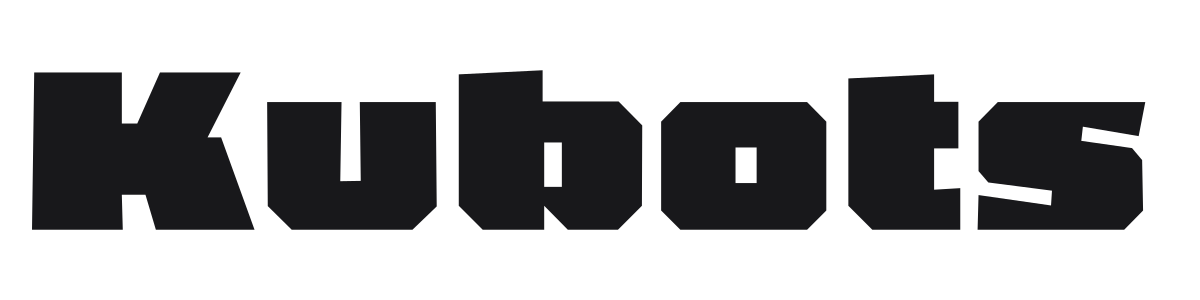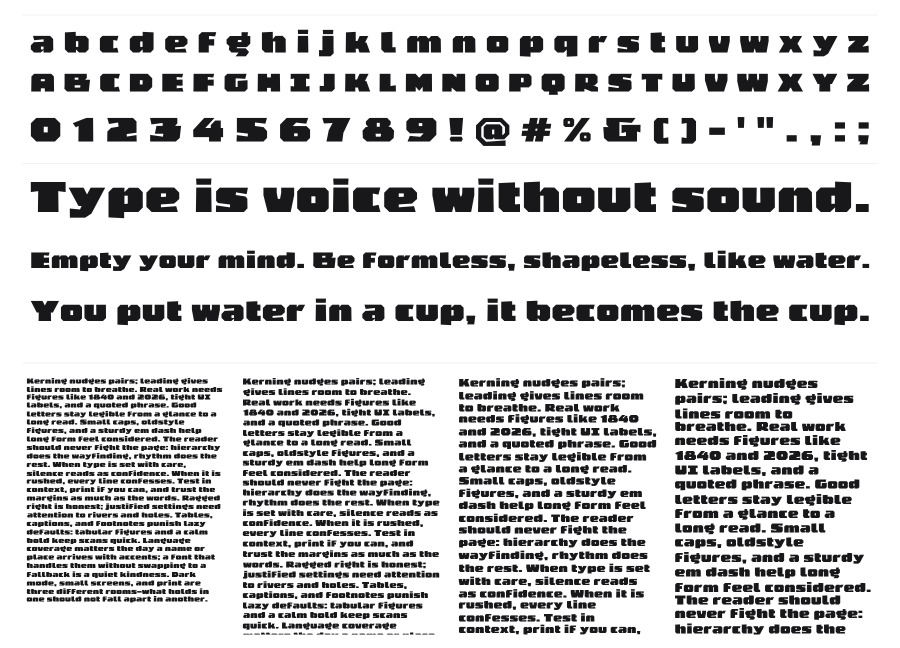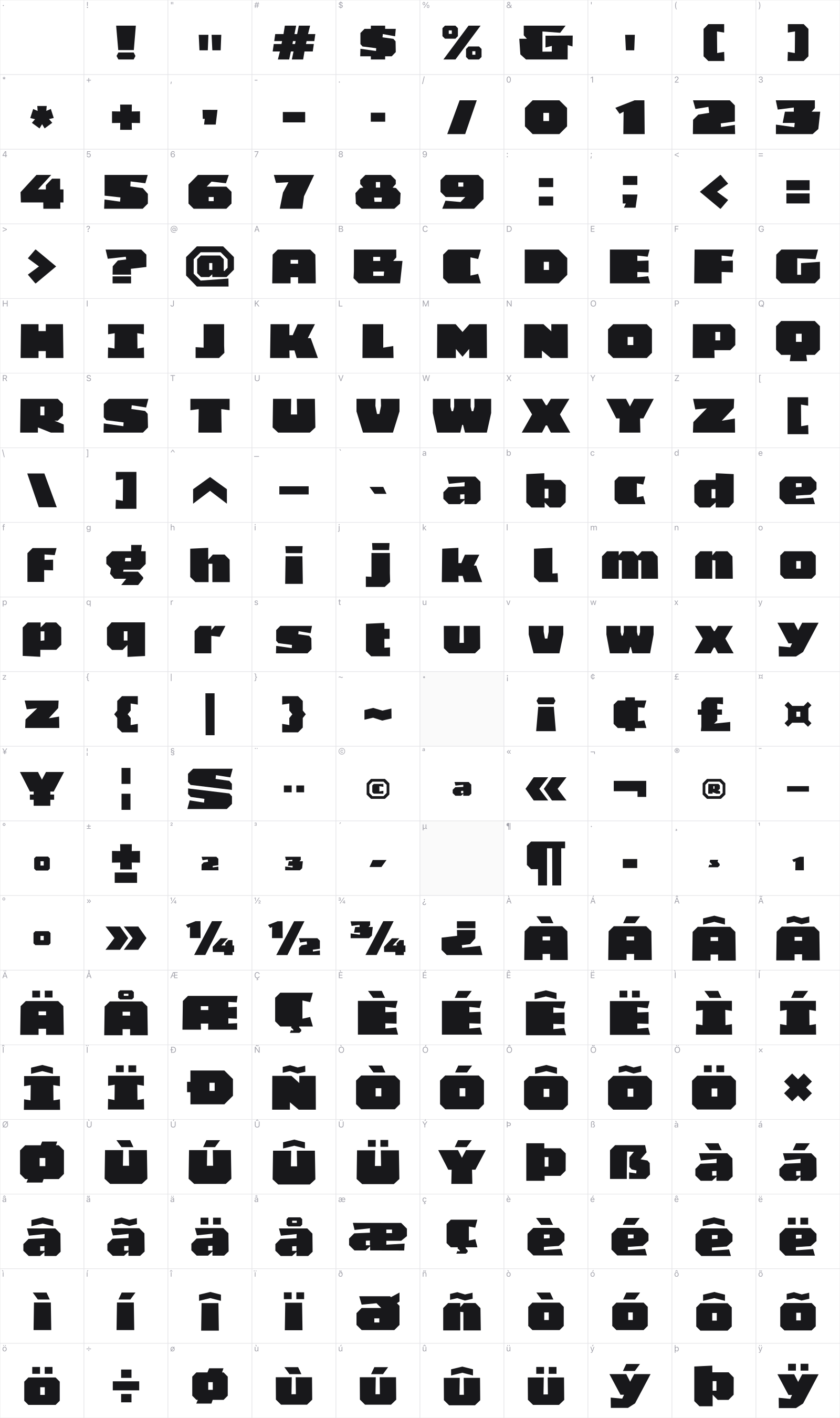
Kubots
Kubots is an ultra-heavy display sans with squared, chunky characters and sharp notched details that give it a retro-futurist edge. Its near-zero stroke contrast and blocky construction make it feel at home in gaming, streetwear, and high-impact poster work. The weight is extreme by design.